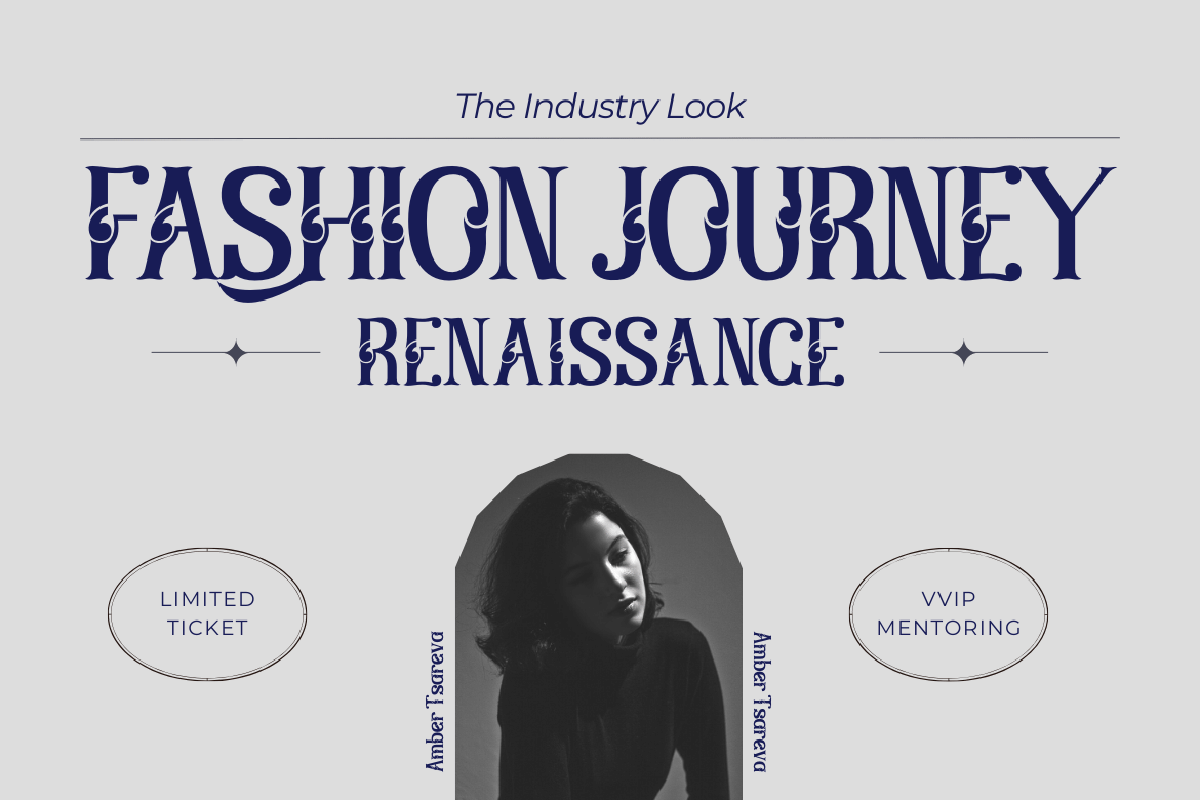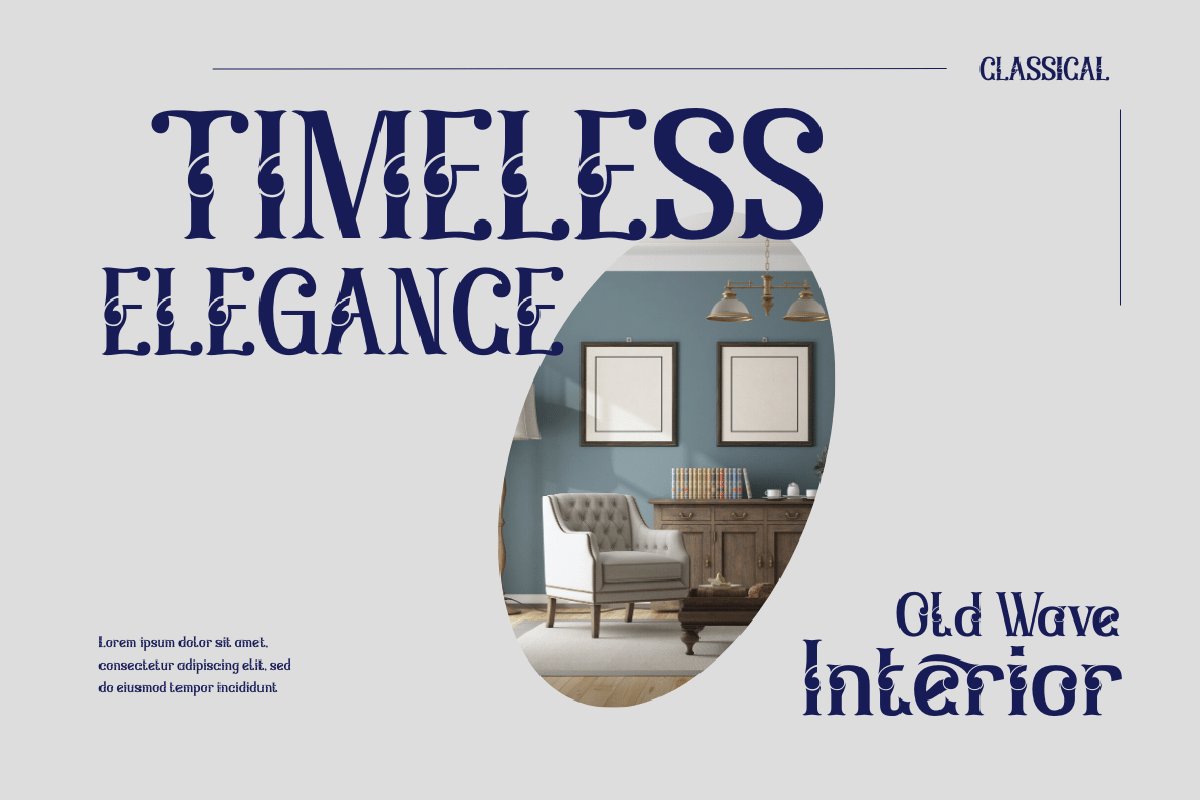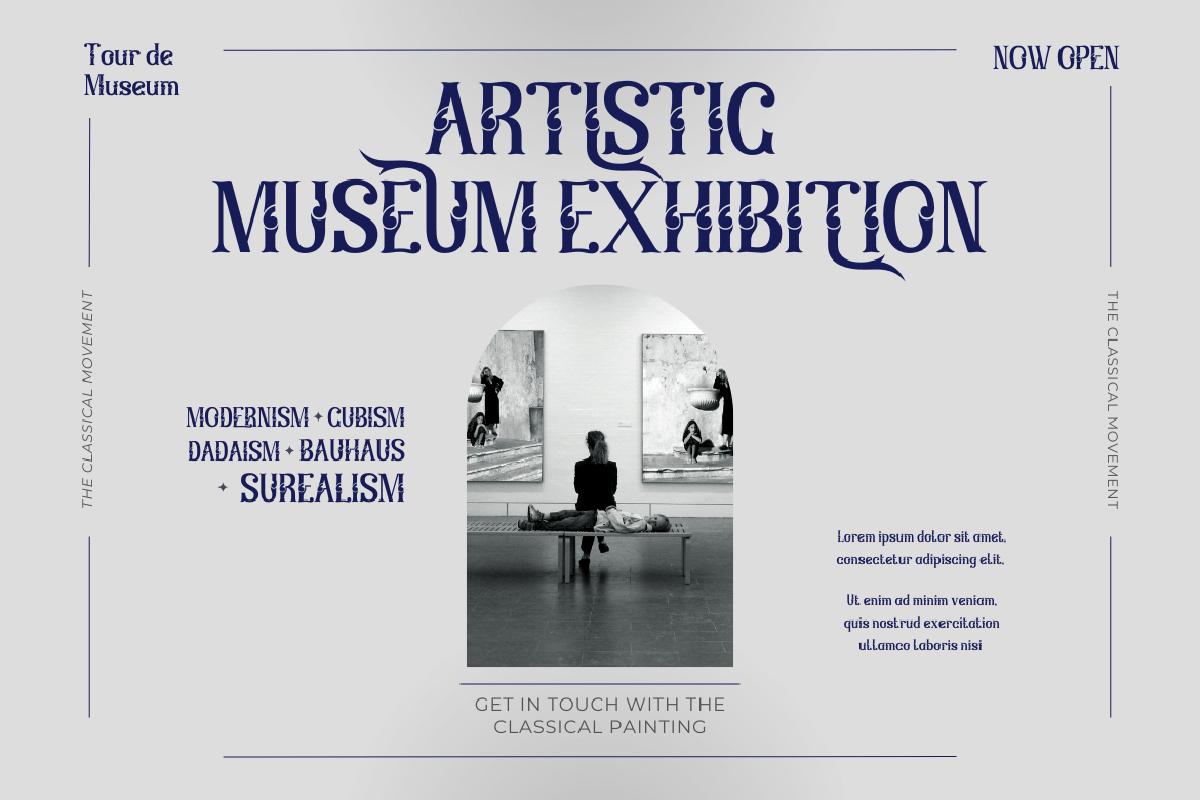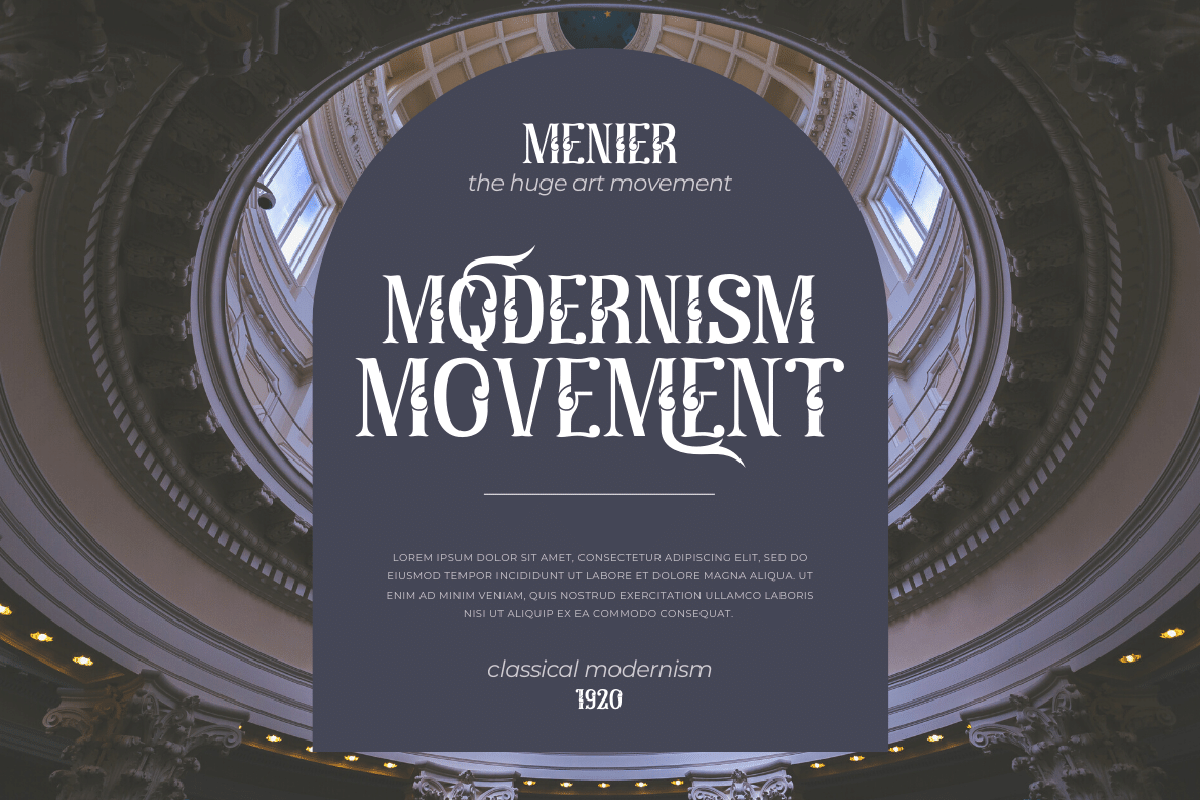
Menier Free Font
Introducing Menier Free Font, the perfect retro condensed font for any project! Its classic style and sleek design make it a versatile choice for both print and digital designs. Menier’s retro condensed style adds a touch of nostalgia to any project, making it ideal for vintage and retro-themed designs. This free typeface was designed by a talented Twin Letter. If you like it don’t forget to check out the full version.